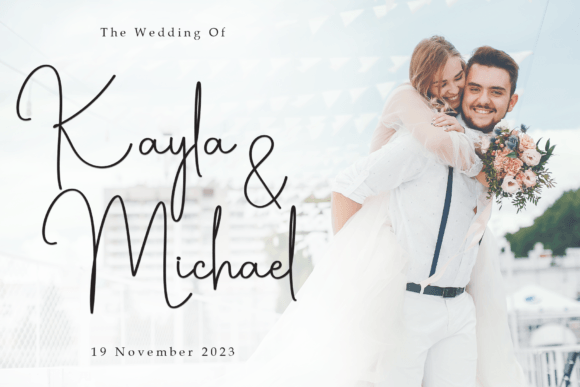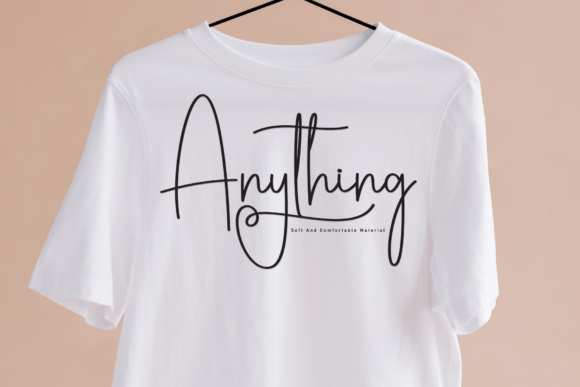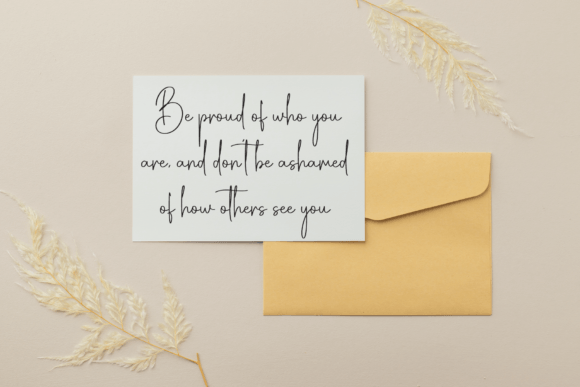
Introduction to Hikingpeak Font
That’s when I stumbled upon the Hikingpeak Font, a stunning handwritten font that has become my go-to design resource for any creative project. With its unique and beautiful touch, this font is perfect for creating eye-catching logos, branding, and quotes that will leave a lasting impression. Whether you’re a seasoned designer or just starting out, the Hikingpeak Font is a valuable addition to your design arsenal.
Key Features of Hikingpeak Font
- Unique, hand-drawn design ideal for creative projects requiring a natural, outdoorsy feel.
- Suitable for a variety of design projects, including outdoor and nature-inspired themes, travel brochures, and more.
Honest Review: Hikingpeak Font
As a designer, I’m always on the lookout for unique and high-quality design resources. Recently, I came across the Hikingpeak Font, which I’m excited to share my honest review with you.
What works well: ✨ I was impressed by the font’s high-quality design, which is perfect for outdoor and nature-themed projects. The font’s clean and modern aesthetic makes it an excellent choice for creative projects that require a natural and earthy feel. Additionally, the font is available for free download, making it an accessible design resource for designers of all levels.
- Perfect for outdoor and nature-themed projects
However, there are a few limitations to consider: ⚠️ The font only includes uppercase and lowercase letters, which may be a drawback for designers who need to use special characters or punctuation marks. Additionally, the font may not be suitable for projects that require a lot of text or complex typography.
Overall impression: I’m thoroughly impressed with the Hikingpeak Font, and I would definitely recommend it to designers who are looking for a high-quality, free design resource for their creative projects.
To get the most out of the Hikingpeak Font, use it with a transparent background to make your designs stand out. You can also experiment with different font sizes and colors to create a unique look.
The Hikingpeak Font is perfect for creating outdoor-themed designs, such as hiking trails, camping trips, and nature-inspired graphics. You can also use it for creative projects like logos, brochures, and business cards.